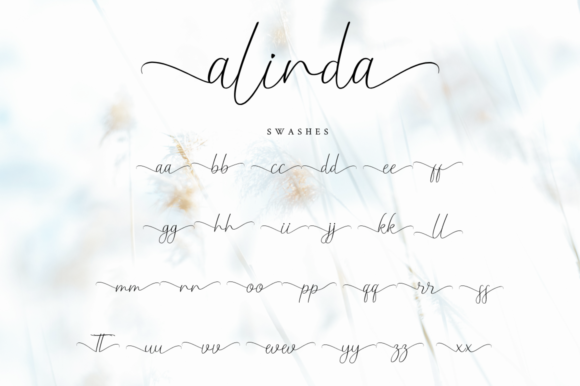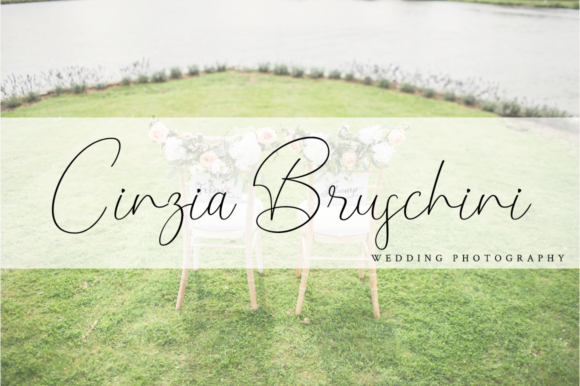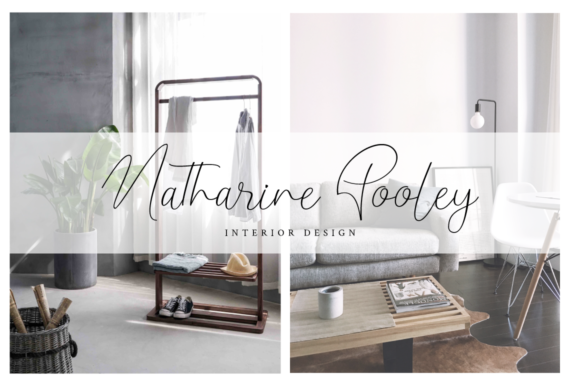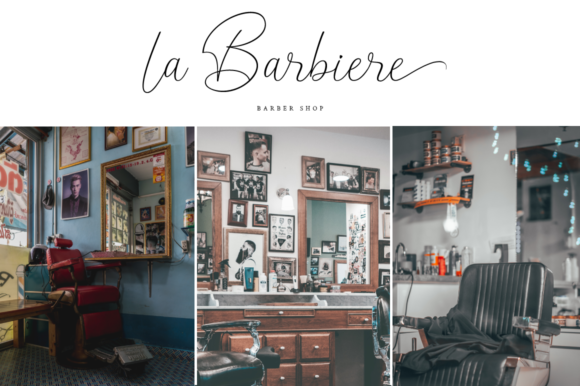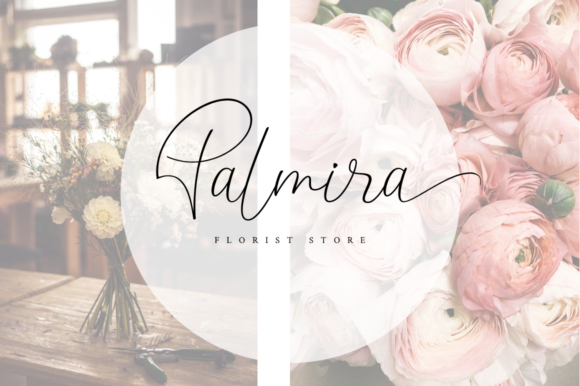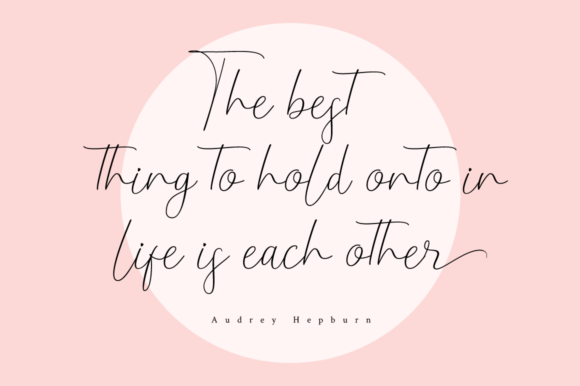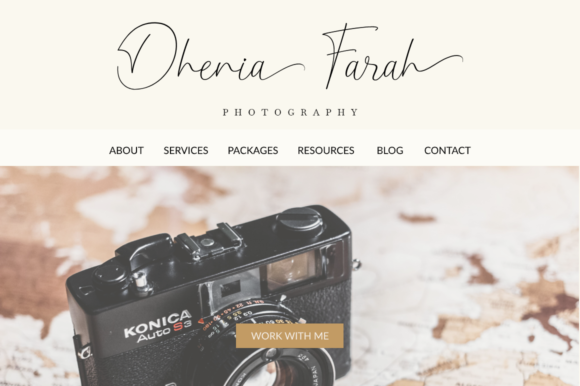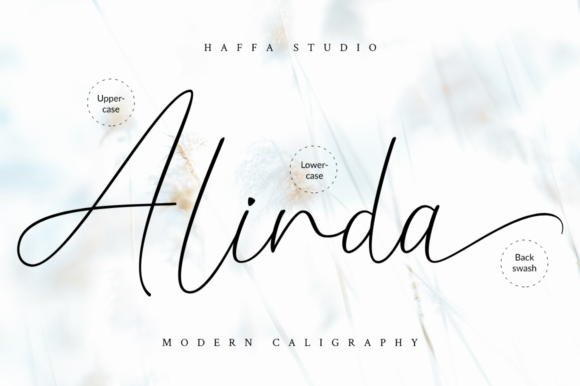
Alinda
About Alinda Font
Alinda feels equally charming and elegant. This handwritten font will appeal to a wide range of crafty ideas, from letterheads and titles, to stationery.